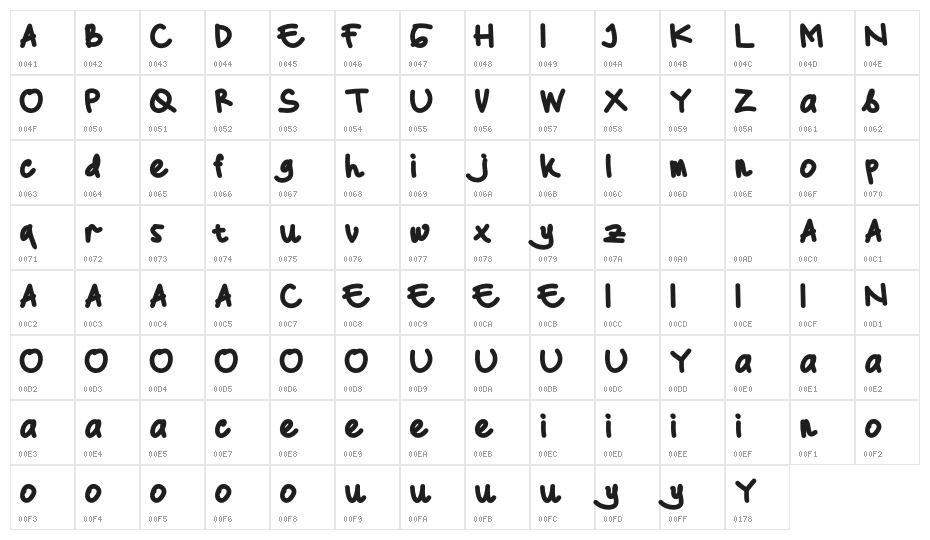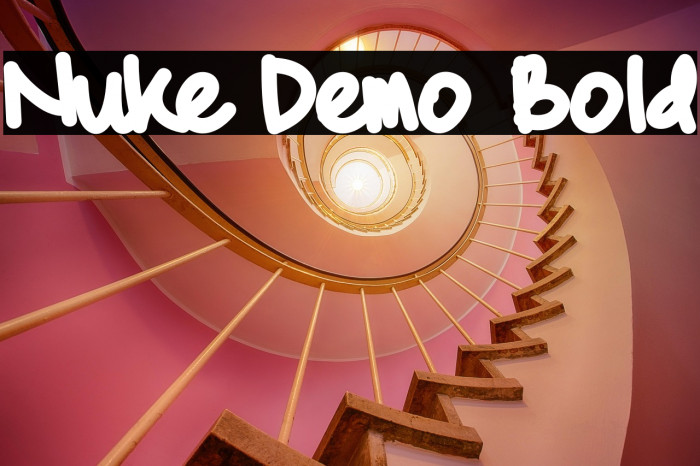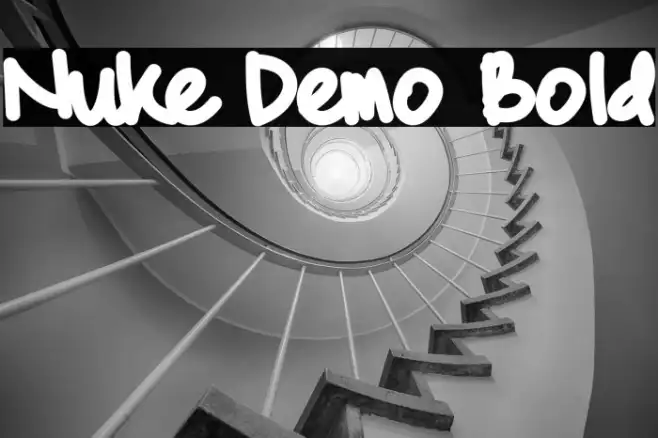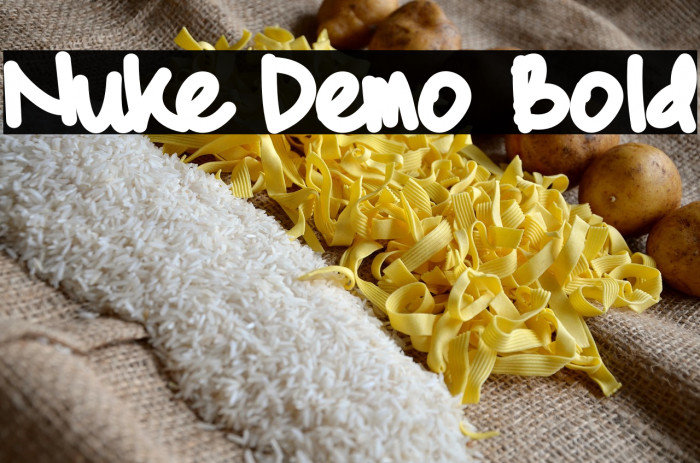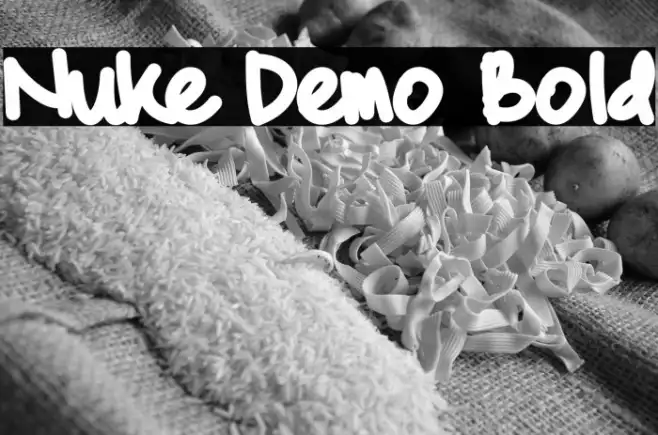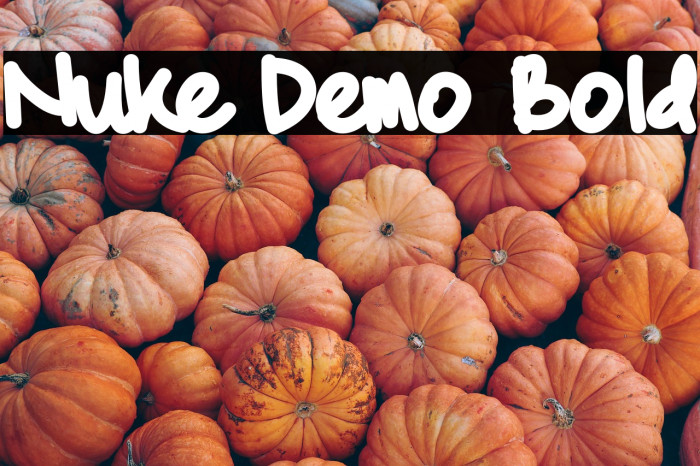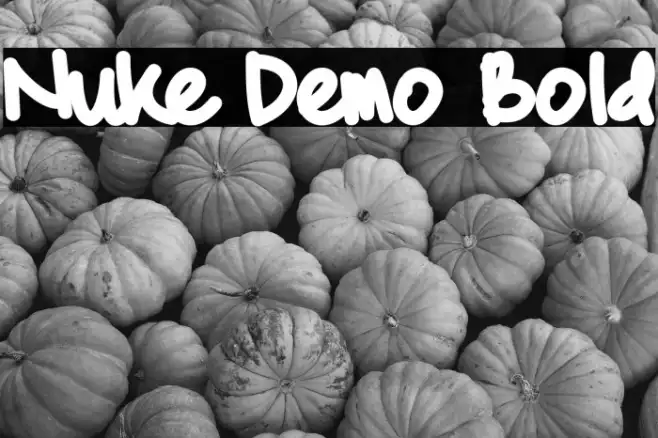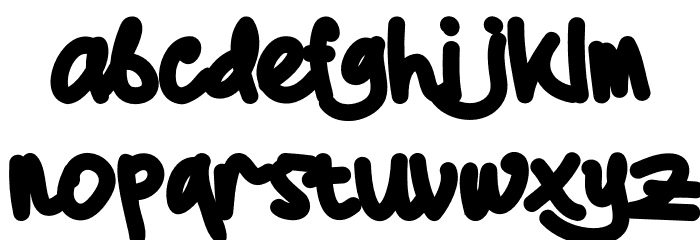
Nuke Demo Bold Font
Nuke Demo Bold Description
This bold, handwritten style font exudes a playful and energetic vibe, characterized by its thick strokes and casual, freeform letters. The uppercase and lowercase letters maintain a consistent boldness, giving the font a cohesive look. Its informal style is reminiscent of graffiti or street art, making it ideal for projects that require a youthful and dynamic appearance. The characters are slightly irregular, adding to its charm and making it stand out in creative designs. The font's boldness ensures high readability, even at smaller sizes, while the unique character shapes add personality to any text.
| Proposed Projects | Perfect for posters, album covers, streetwear branding, and social media graphics. |